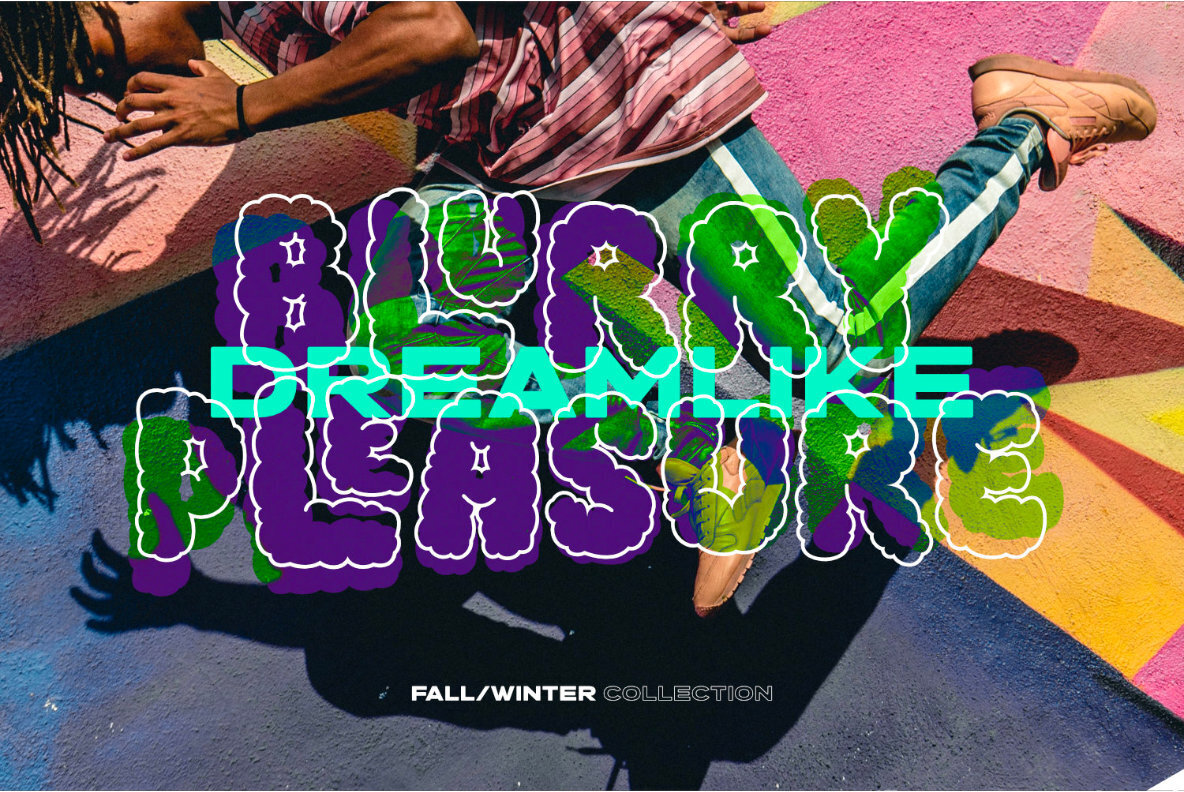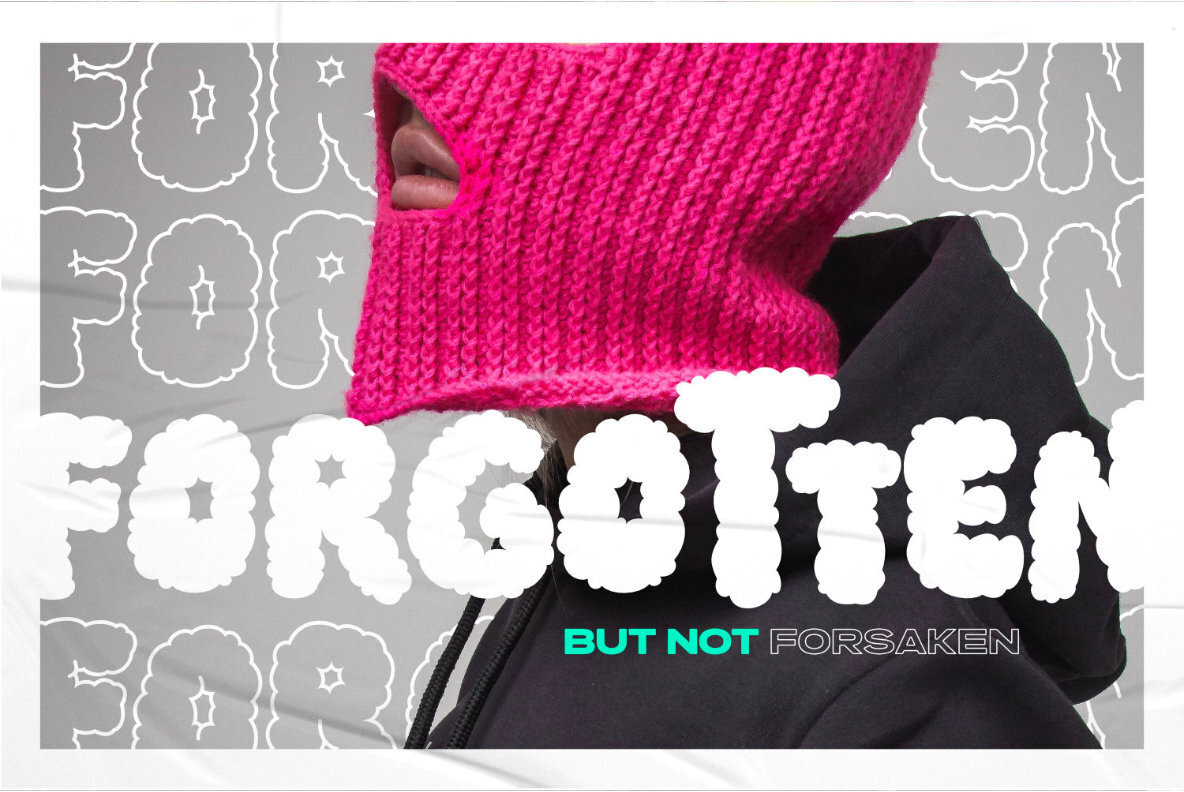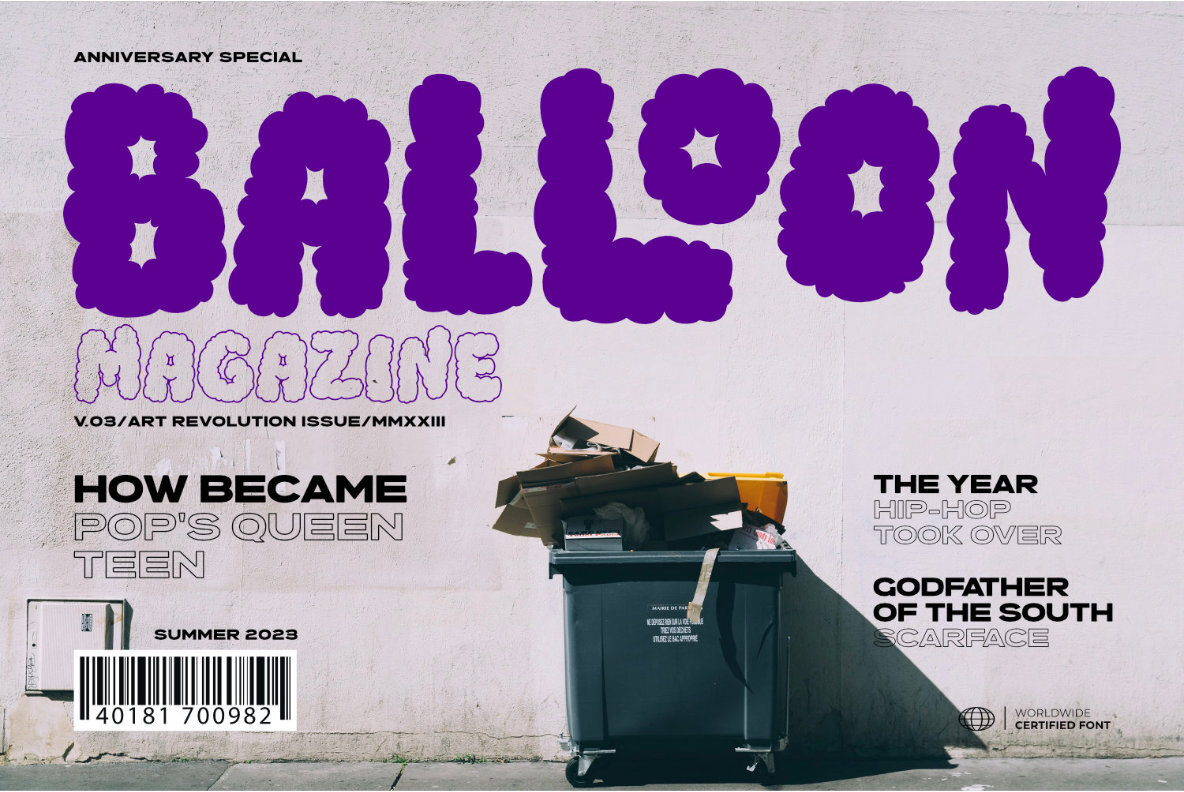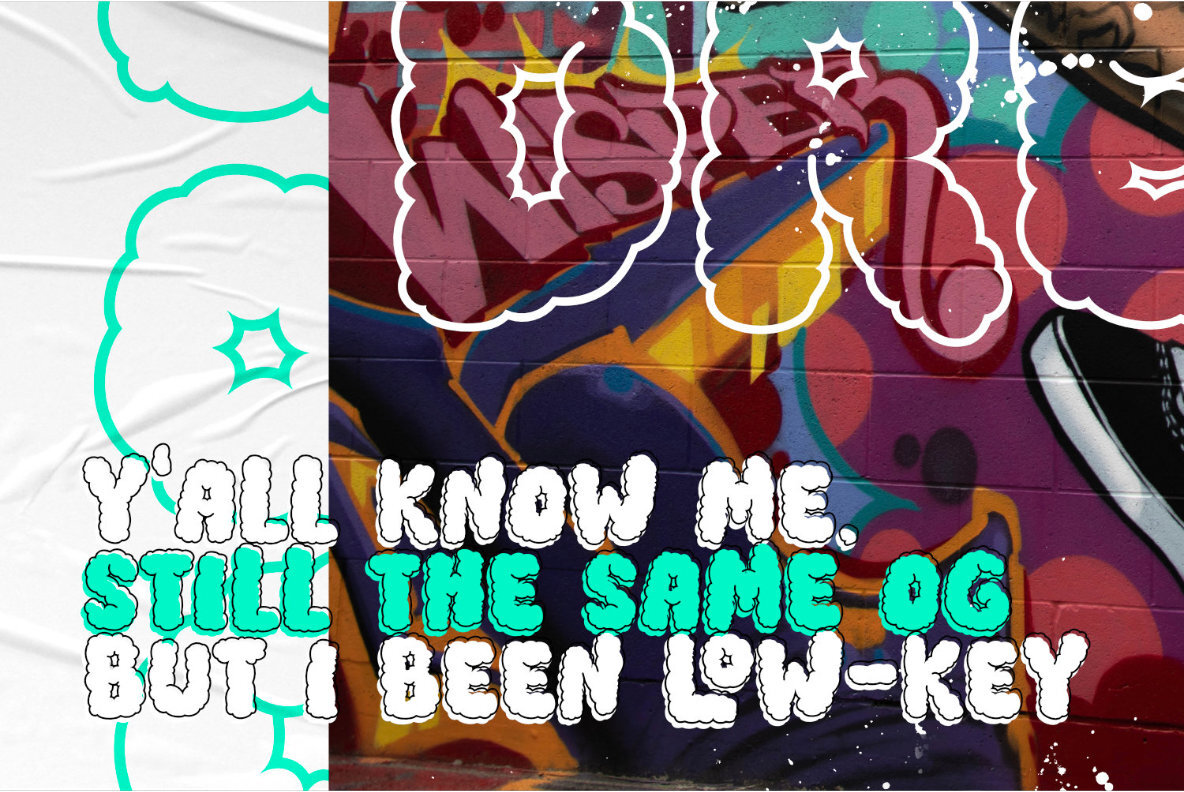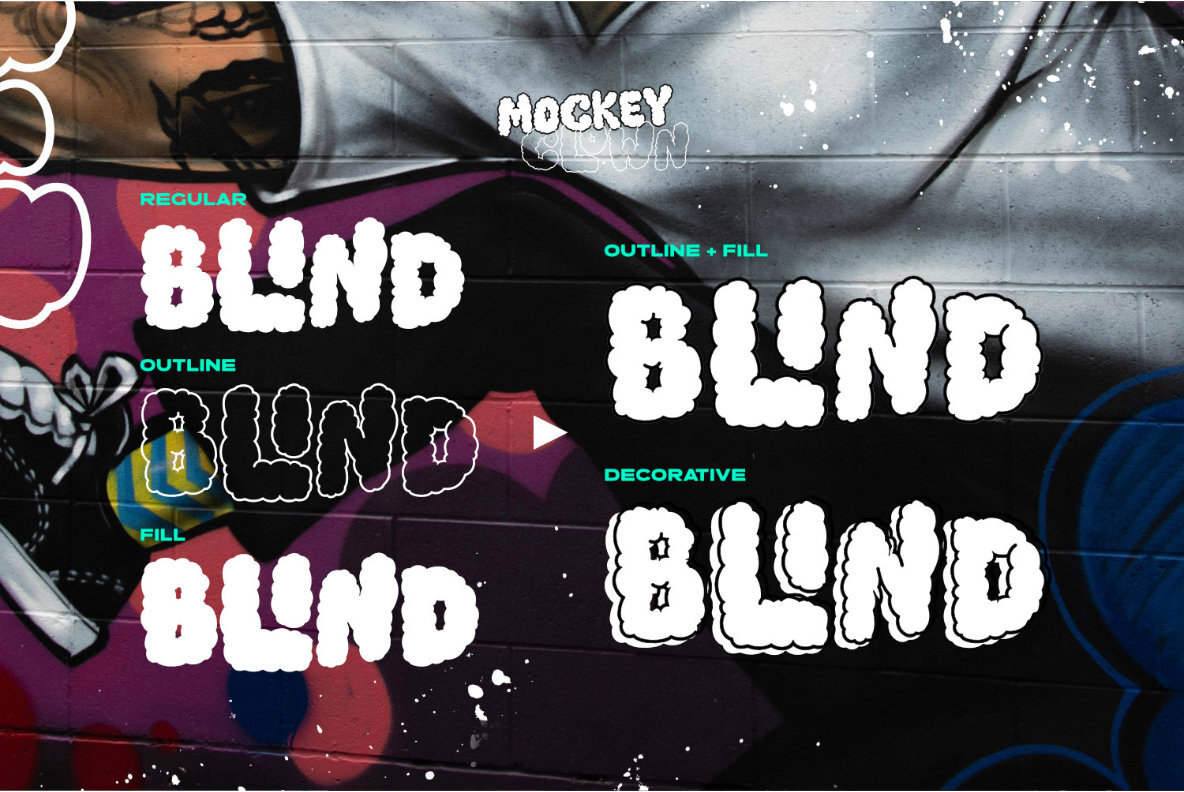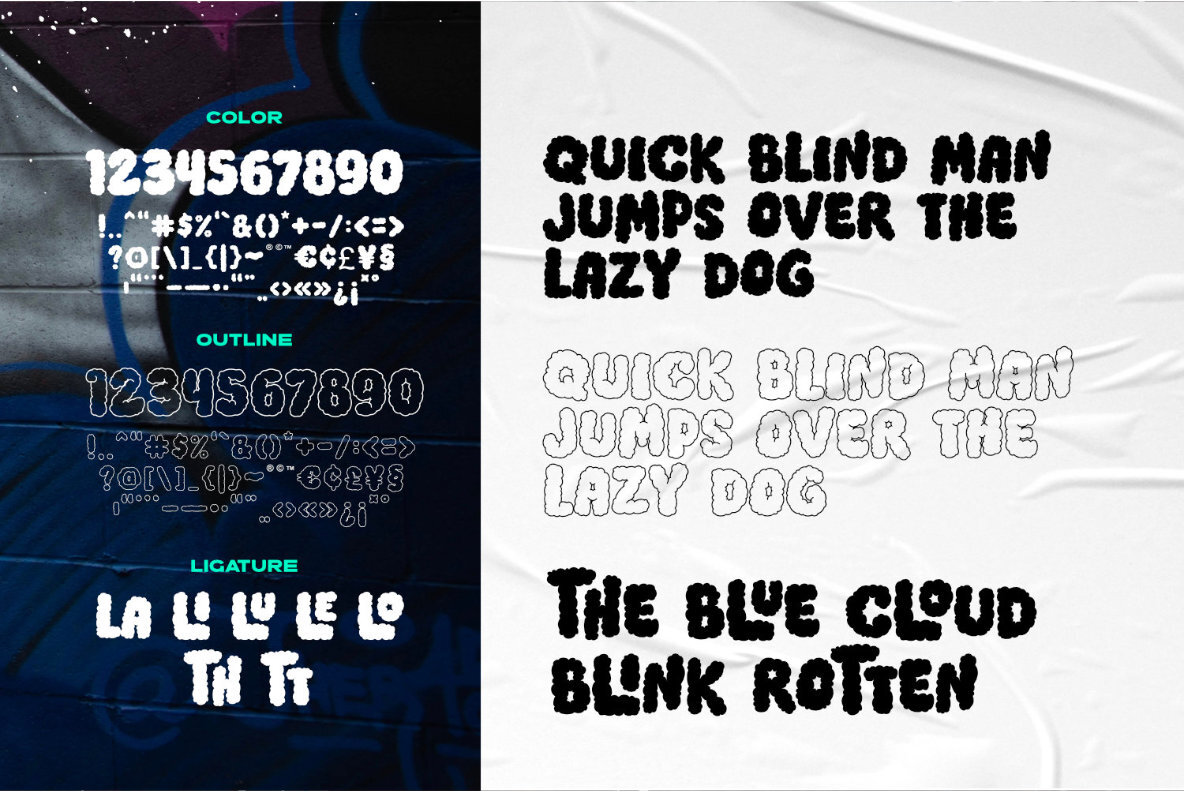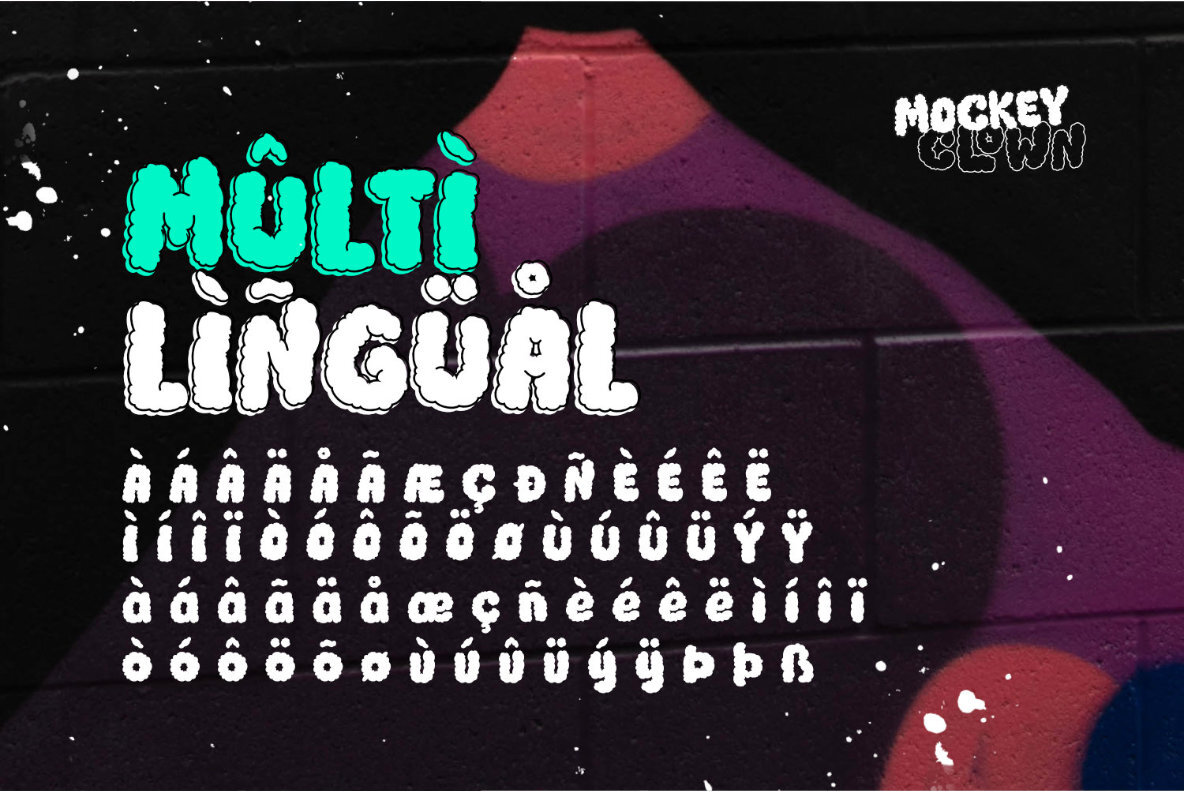
Mockey Clown Font
Mockey Clown font is a decorative hipster font that is contemporary and stylish. Its cloud style and flowing lines give it a whimsical and trendy look, making it perfect for any creative project that needs a distinctive and playful touch. Whether you're designing a youth-oriented layout, creating posters, or adding text overlays to background images, Mockey Clown font is a great choice for a fresh and trendy look.
:: 3 Styles : Regular / Outline / Fill
:: Uppercase & Lowercase
:: Numbers & Punctuation
:: Ligature (Bonus)
:: Multilingual Support